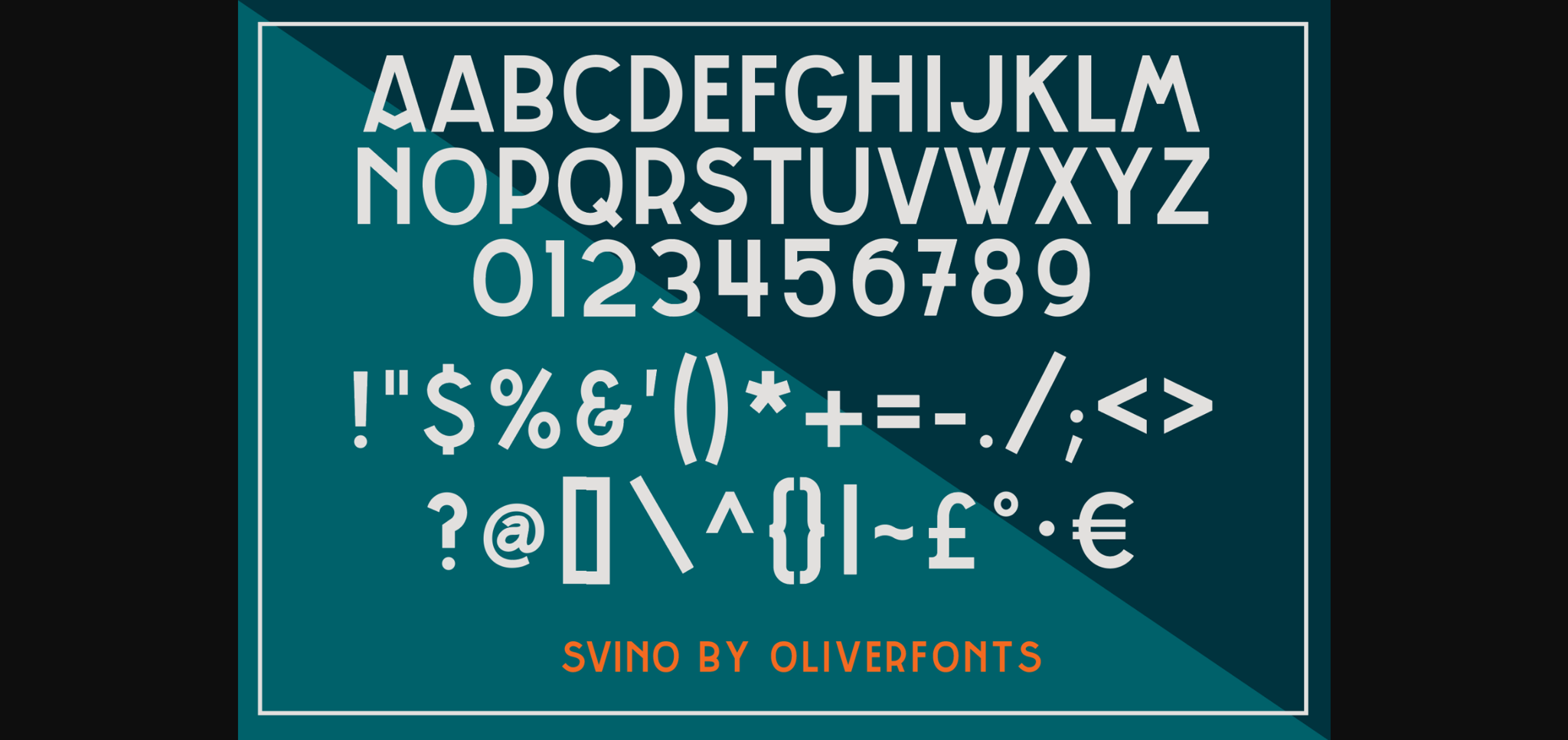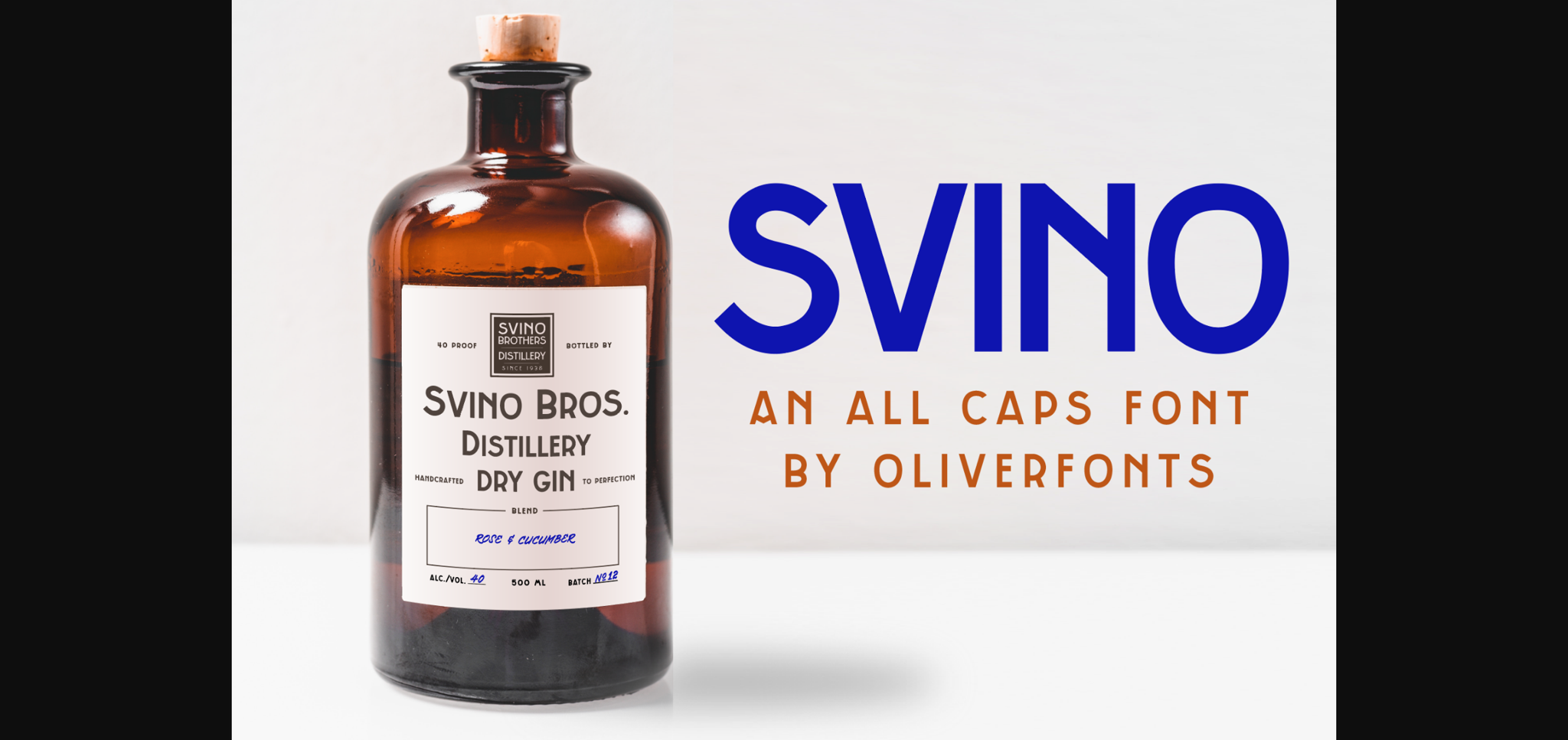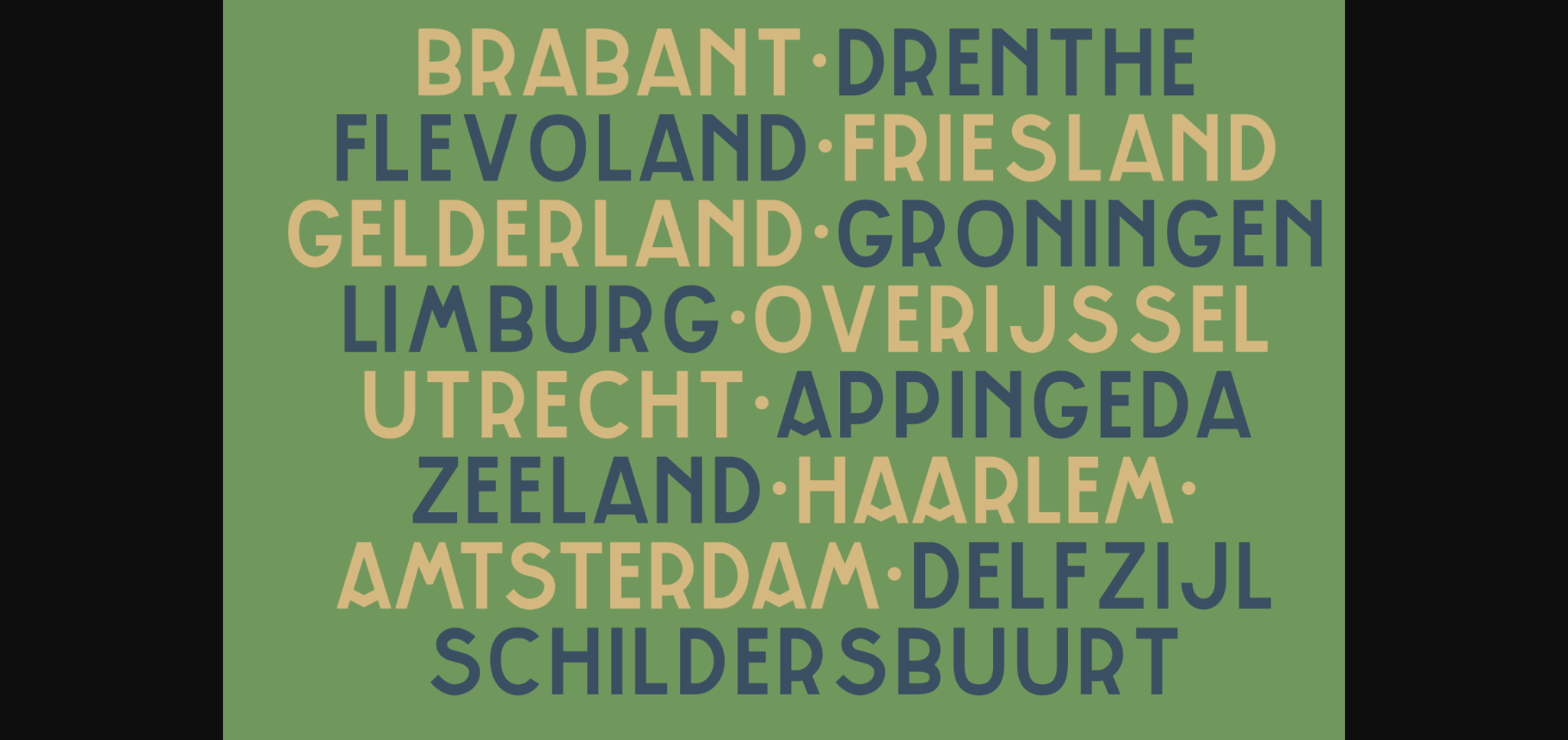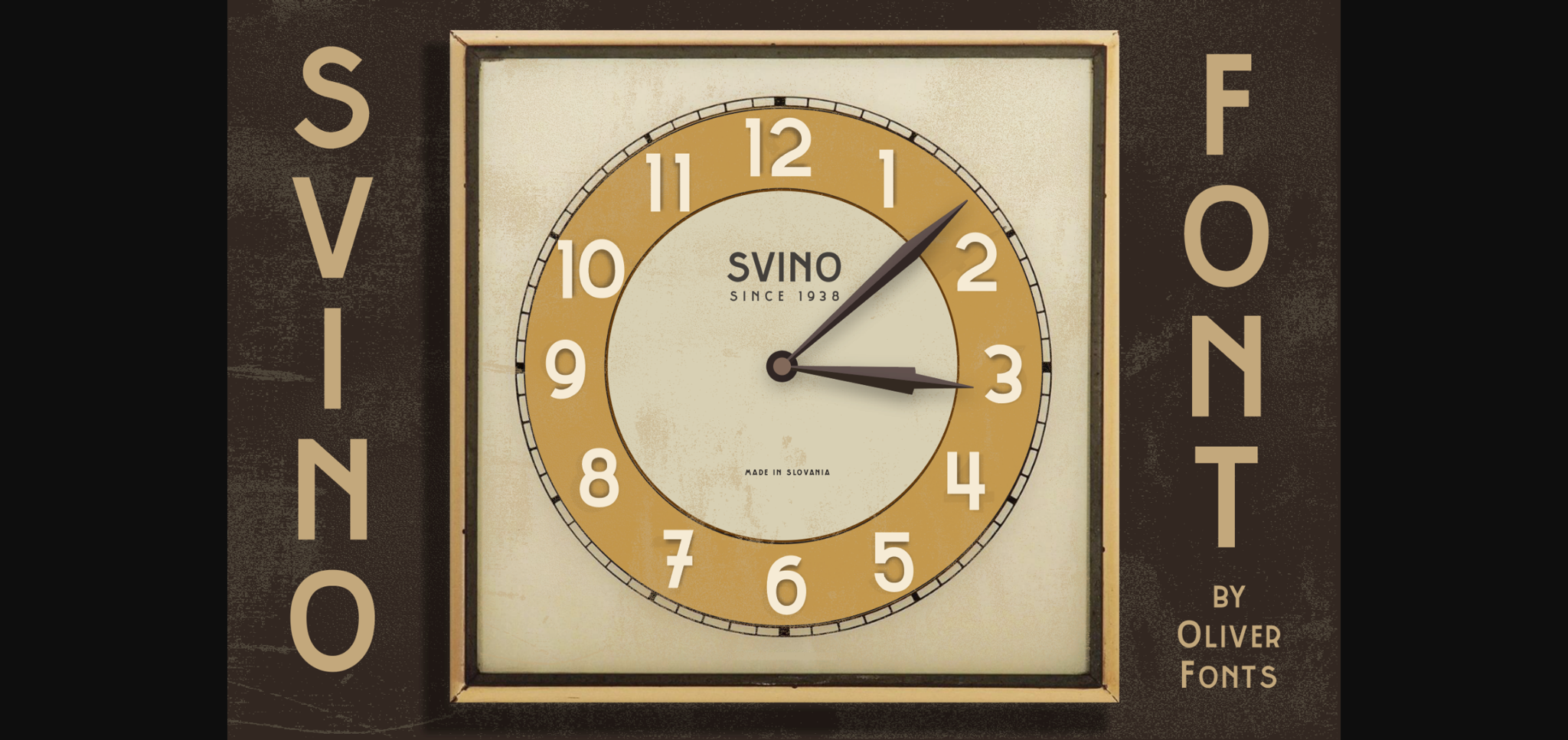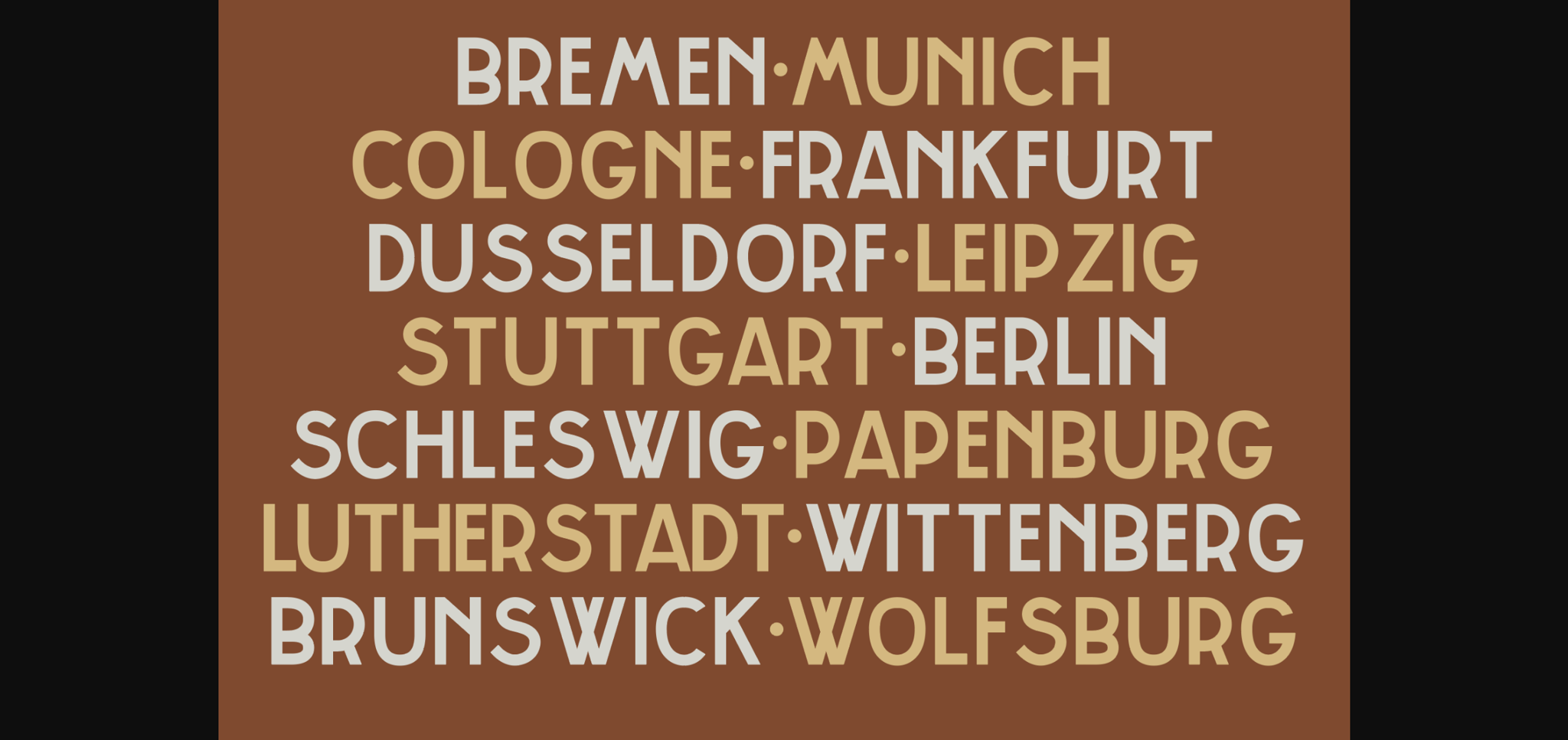
Svino Font
About Svino Font
Svino is a cool, all caps sans serif font. It can easily be matched to an incredibly large set of projects, so add it to your creative ideas and notice how it makes them stand out!